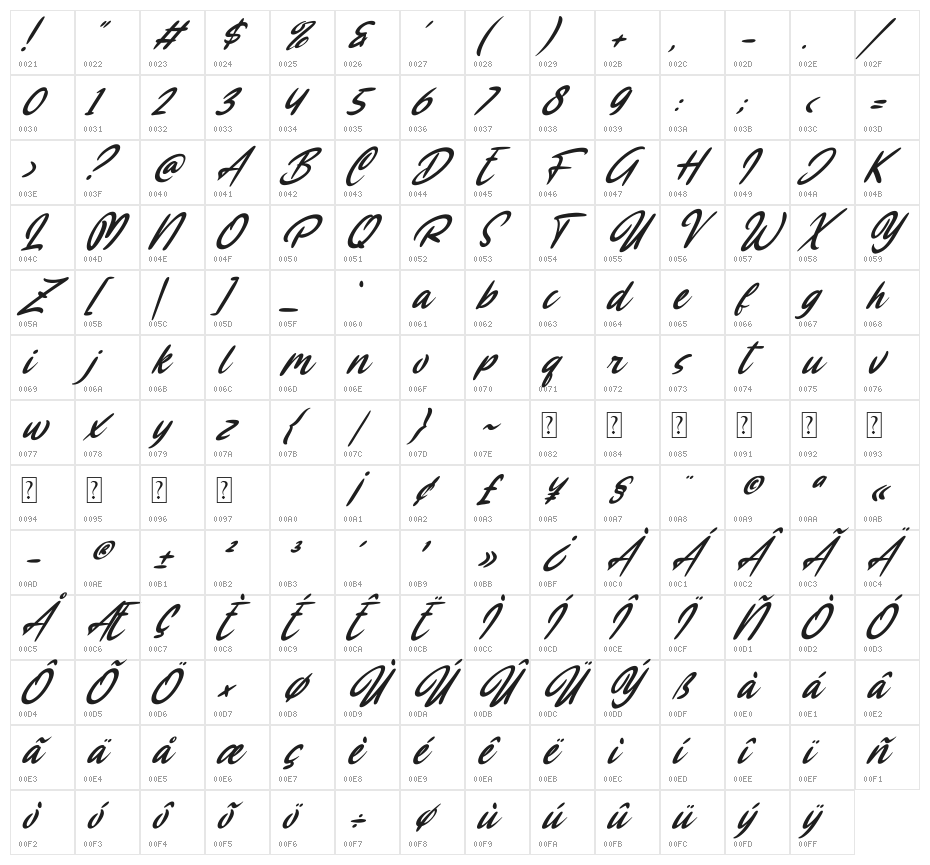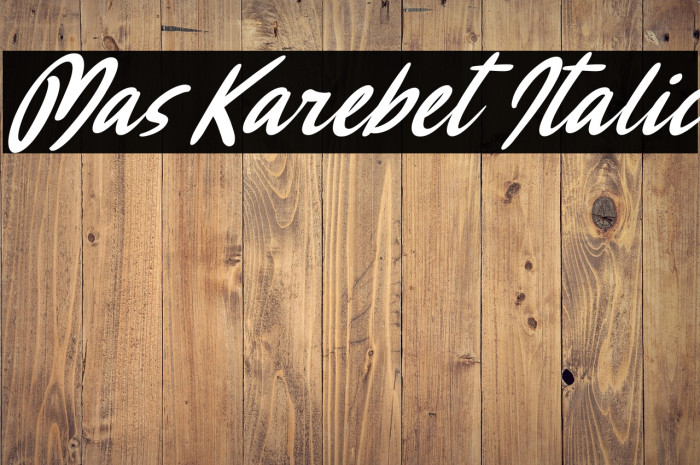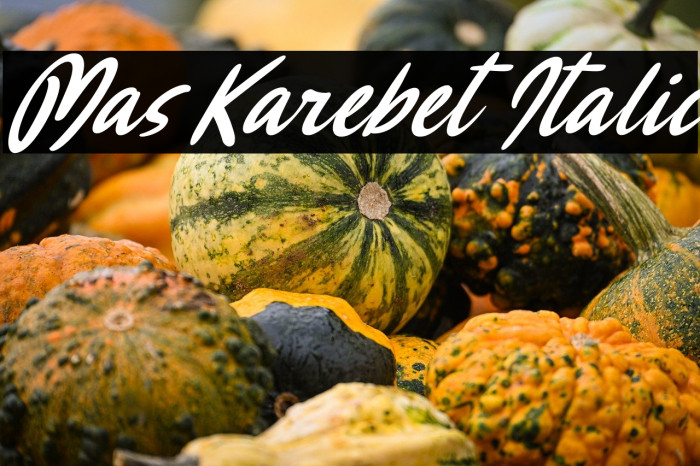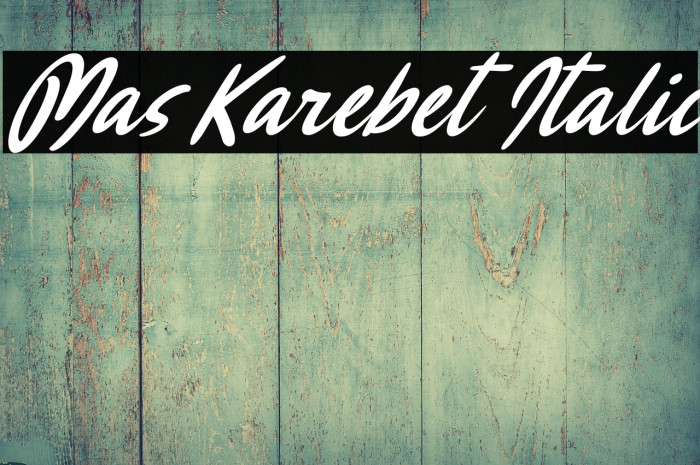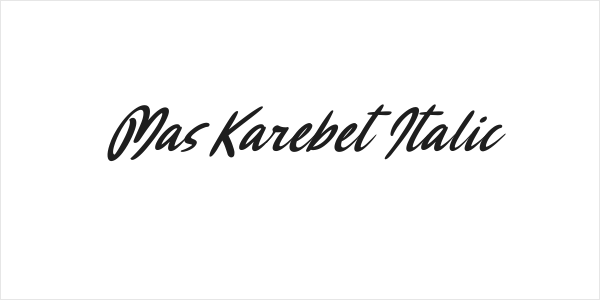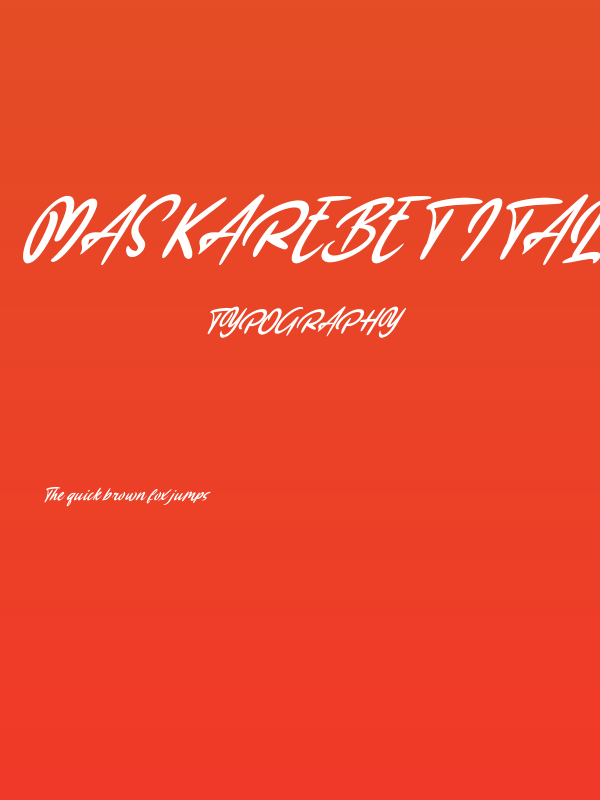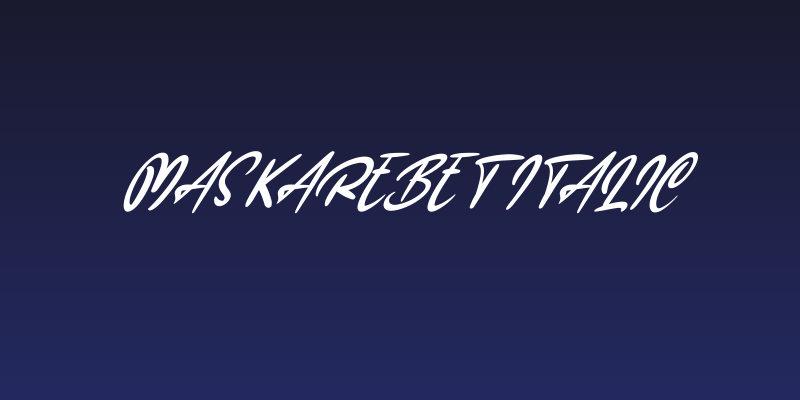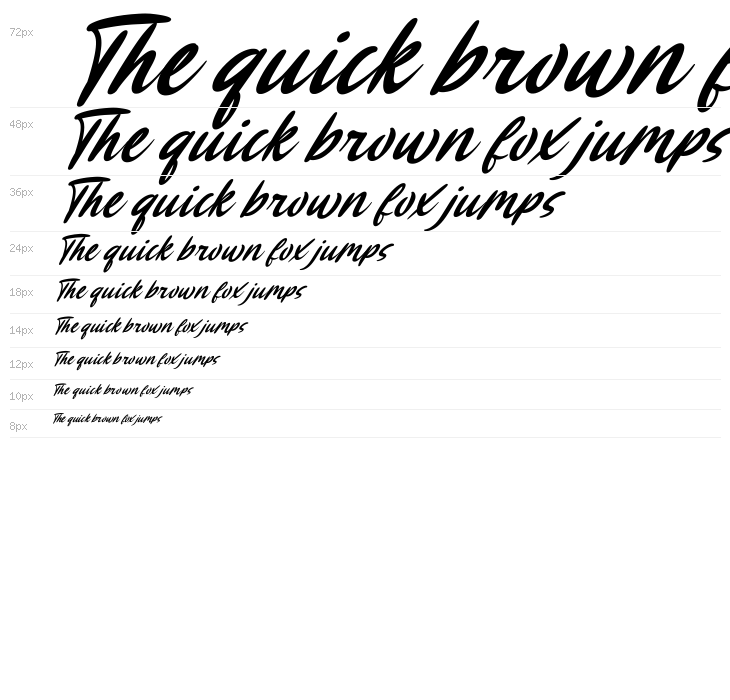
Mas Karebet Italic Font
Mas Karebet Italic Description
This font exhibits a dynamic and fluid script style, characterized by its bold and italicized letterforms. The strokes are smooth and connected, giving it a handwritten appearance. The uppercase letters are particularly expressive, with sweeping curves and a slight slant that enhances its elegant and stylish look. The lowercase letters maintain a consistent flow, complementing the uppercase with their rounded and cursive design. Numbers and special characters are crafted with the same attention to detail, ensuring uniformity across the typeface. This font's overall aesthetic is both modern and artistic, making it suitable for creative and expressive design projects.
| Proposed Projects | Ideal for wedding invitations, greeting cards, branding, and logo design where a personal and artistic touch is desired. |